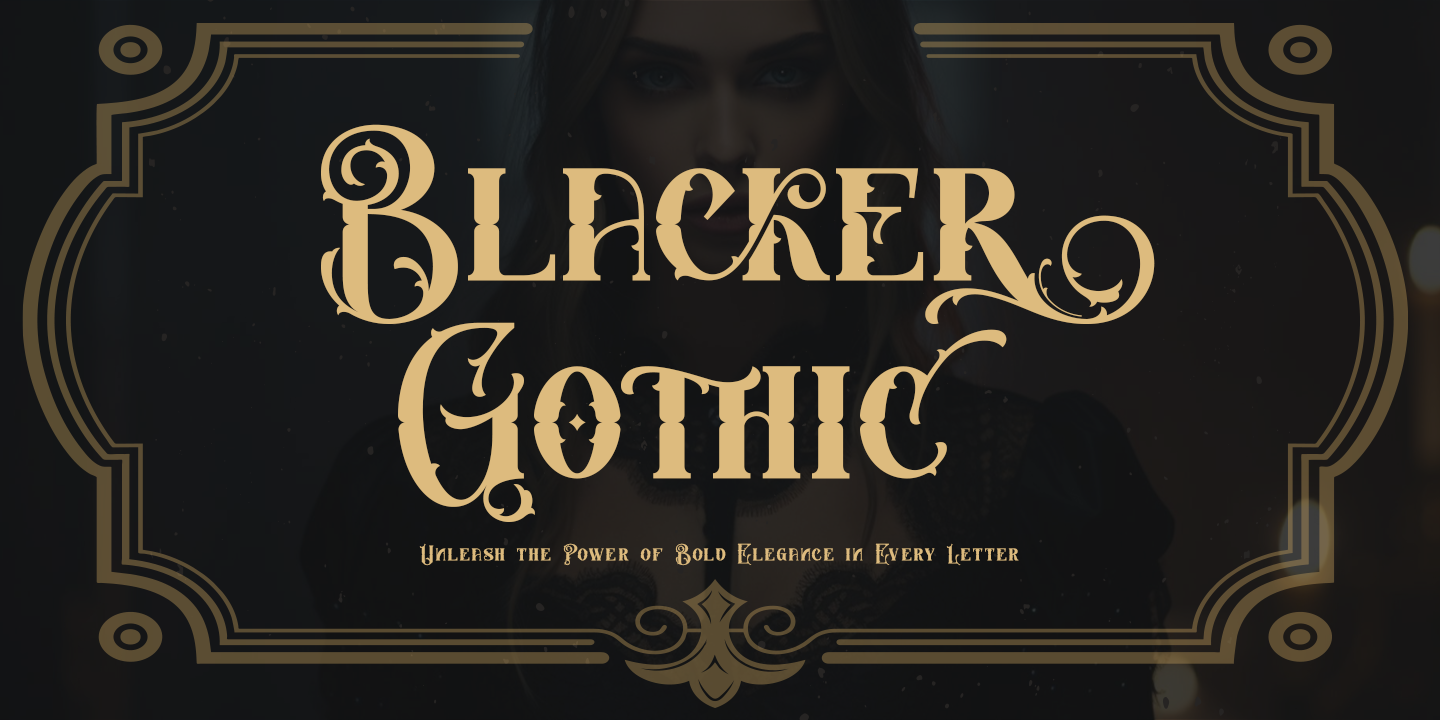
Blacker Gothic Font is perfect for dark fashion branding, gothic architecture signage, alternative music album covers, horror entertainment marketing, metal band logos, gothic literature publications, dark art exhibitions, and underground culture graphics. This intensely dramatic typeface excels in projects requiring mysterious darkness and architectural authority where gothic elegance meets contemporary edge.
What makes Blacker Gothic Font exciting is its powerful fusion of traditional gothic architecture with modern typographic darkness, creating an intensely dramatic presence that commands attention and respect. The font features bold, blackletter-inspired characters with sharp architectural details and imposing vertical emphasis that evoke ancient cathedrals and mysterious medieval manuscripts. Its dark character makes it perfect for brands seeking to convey mystery, sophistication, and alternative cultural authority.
Blacker Gothic Font family includes multiple weights and decorative variations that enhance its gothic appeal while providing design flexibility for complex dark projects. The family typically offers regular, medium, bold, and ultra bold weights, along with ornamental capitals, gothic symbols, and architectural decorative elements that complement dark and alternative design themes perfectly.
Whether you're designing gothic fashion campaigns, creating dark entertainment branding, or developing alternative culture materials, Blacker Gothic Font Free Download provides the perfect shadowy solution for projects demanding dramatic gothic presence. This font's mysterious authority and architectural heritage make it essential for brands targeting audiences who appreciate dark aesthetics and alternative cultural expressions.
The dramatically crafted letterforms and imposing gothic proportions of Blacker Gothic Font create an immediate sense of dark grandeur and architectural mystery that captivates viewers with its powerful presence. Its distinctive gothic personality and contemporary edge make it an invaluable tool for designers working in fashion, entertainment, and alternative culture industries. Download Blacker Gothic Font today and embrace the dark power of gothic typography in your most dramatic creative projects with this architecturally inspired typeface.